20+ Timeless Fonts for Luxury Lawyer Brands to Boost Your Image
First impressions are critical, especially when your business offers high-end services like legal assistance. Using elegant fonts for luxury lawyer branding can help establish a strong impact. Explore inspiring fonts to improve your law firm’s image and attract elite clients.
Key Takeaways:
- Establishing a strong first impression is essential for high-end legal services, and typography is a powerful communicator of a law firm’s brand identity.
- Sans serifs and serifs are the best fonts due to their legibility and versatility. However, other fonts, like script fonts, can also be good choices for legal businesses.
- Always consider fonts based on their legibility, accessibility, and how they present your brand’s identity.
What Are the Best Law Firm Fonts for Branding?
Sans-serif and serif typefaces are top choices due to their readability and versatility. Moreover, they can also give your business a sense of exclusivity. For example, serif fonts create a feeling of authority, while sans-serif fonts evoke a modern vibe. However, other fonts, like display and script, can work too with some consideration.
Keep these tips in mind when choosing the right fonts:
- Readability: Ensure the font is legible in various sizes and formats.
- Versatility: Select a font that is applicable across platforms.
- Brand Personality: Choose a font that resonates with your firm’s brand values and target audience.
Top 21 Extraordinary Fonts for Luxury Lawyer Brands
Take inspiration from this collection of fonts here to efficiently improve your law firm’s branding.
1. Almond
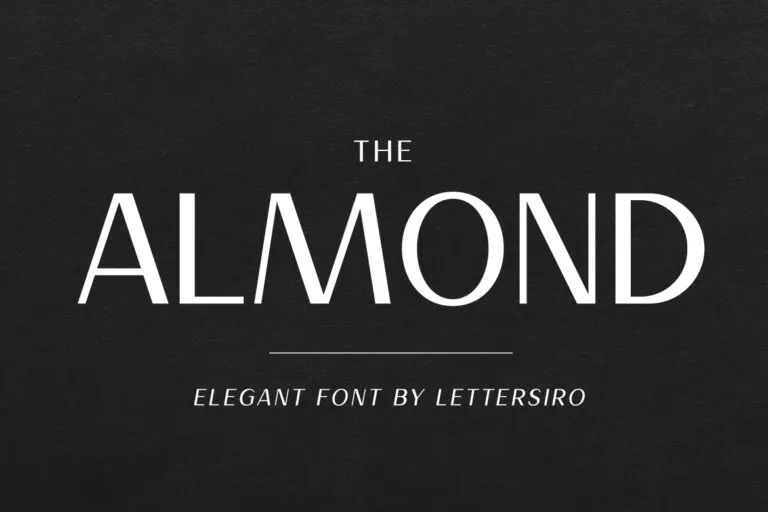
Elegant and versatile, Almond font offers a sophisticated aesthetic with a touch of modernity.
2. Hamilton
Hamilton has a brilliant combination of clarity and modern design. Additionally, this fancy font radiates a sense of professionalism and a gorgeous aesthetic.
3. Maxim
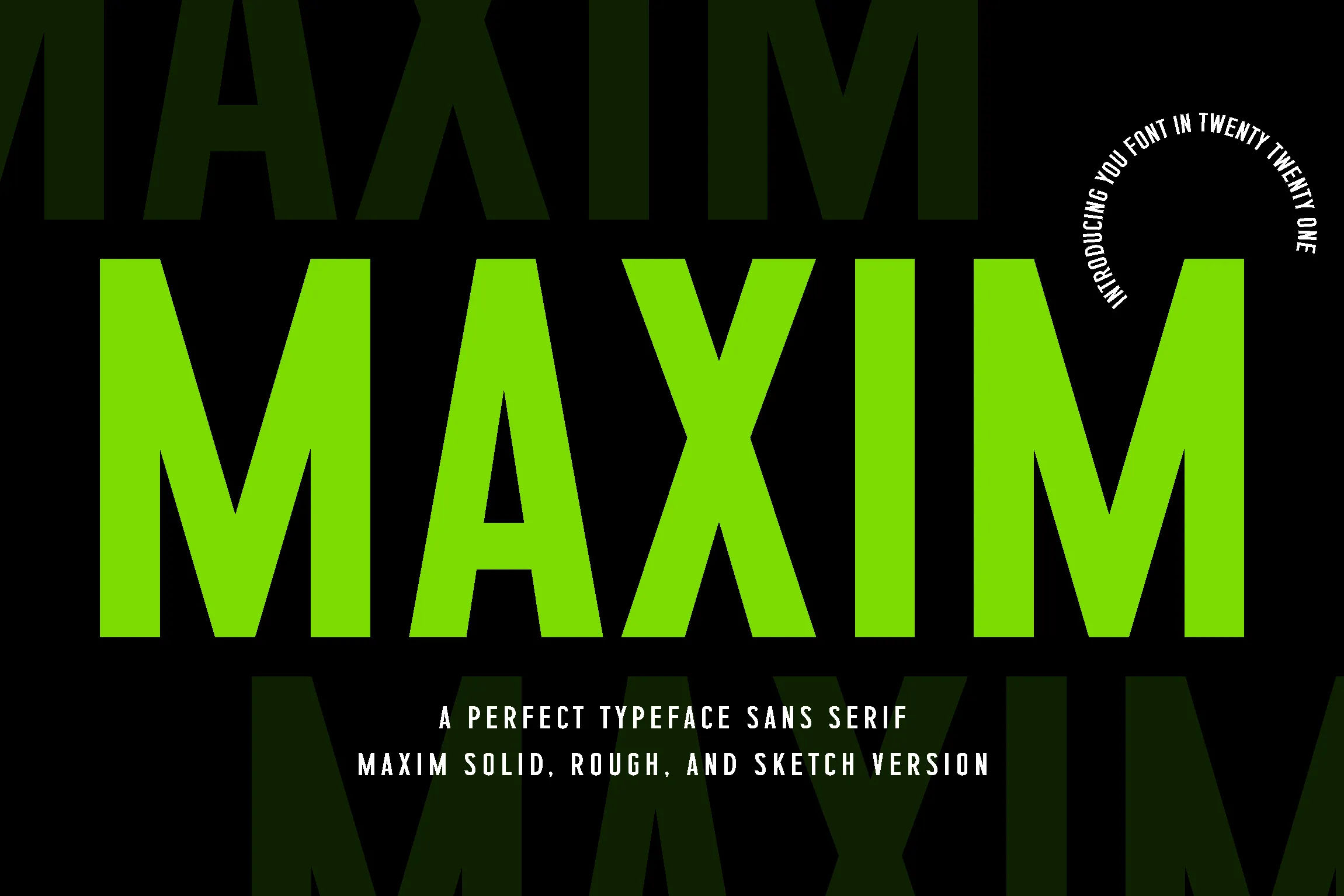
Distinguished by its robust, geometric shapes, Maxim conveys an impression of authority and reliability.
4. Modern Deluxe
Modern Deluxe font is a classy and pleasant sans serif that expresses grandeur and cleverness.
5. South Hamburg
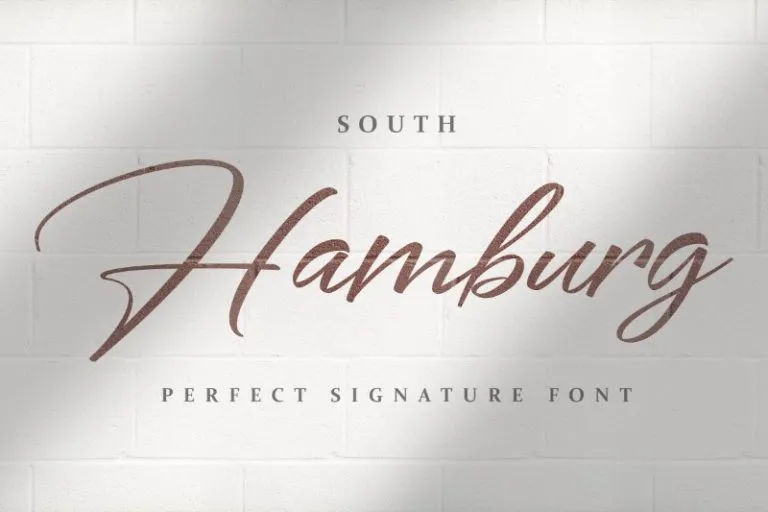
Like other fonts for luxury lawyer brands, South Hamburg emits a sense of professionalism. Its script-like design adds a personal touch to your service.
6. Paladise
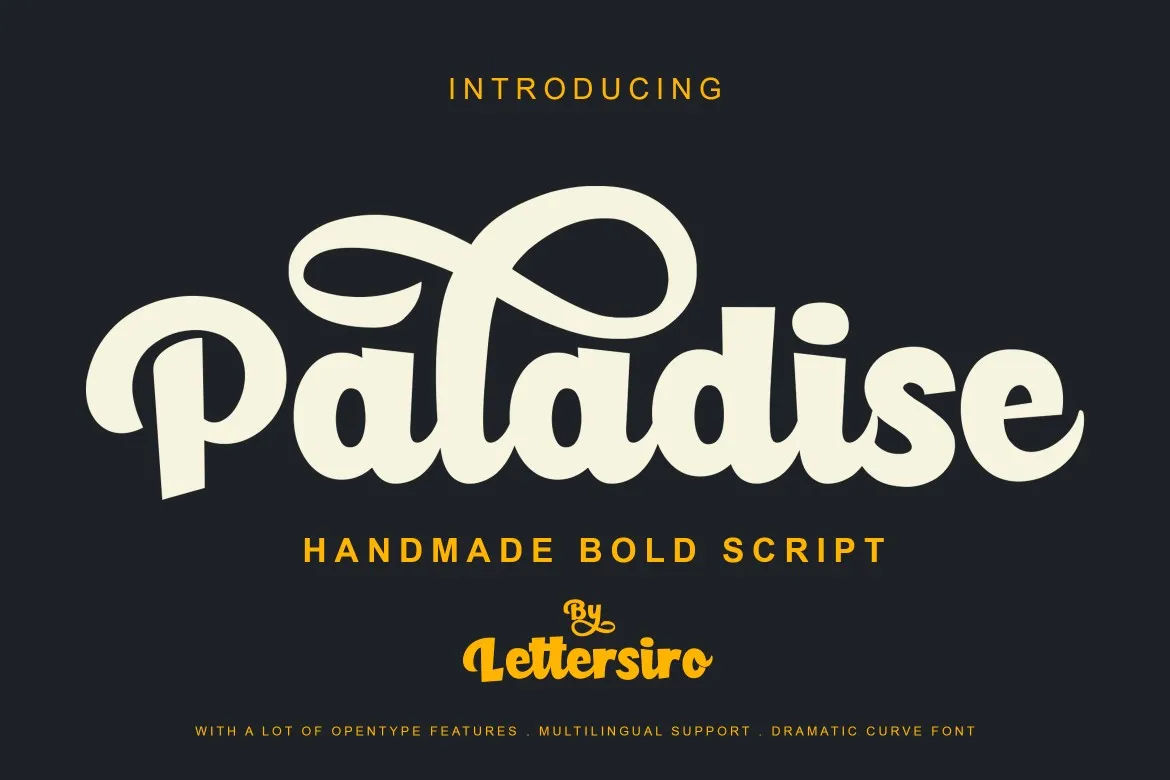
Paladise is an excellently bold script font. It brings fashionable curves to each stroke. It’s fantastic for showcasing the premium quality of your business.
7. Halva
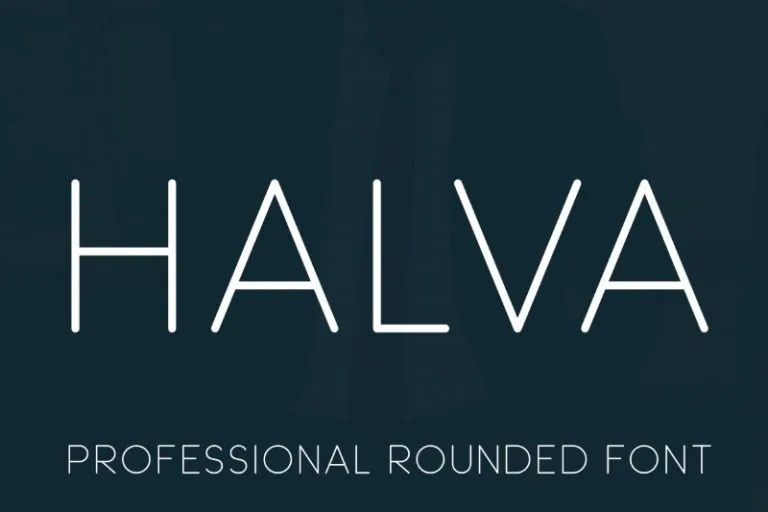
With its refined lines and neat proportions, Halva demonstrates great clarity and competency.
8. Alena
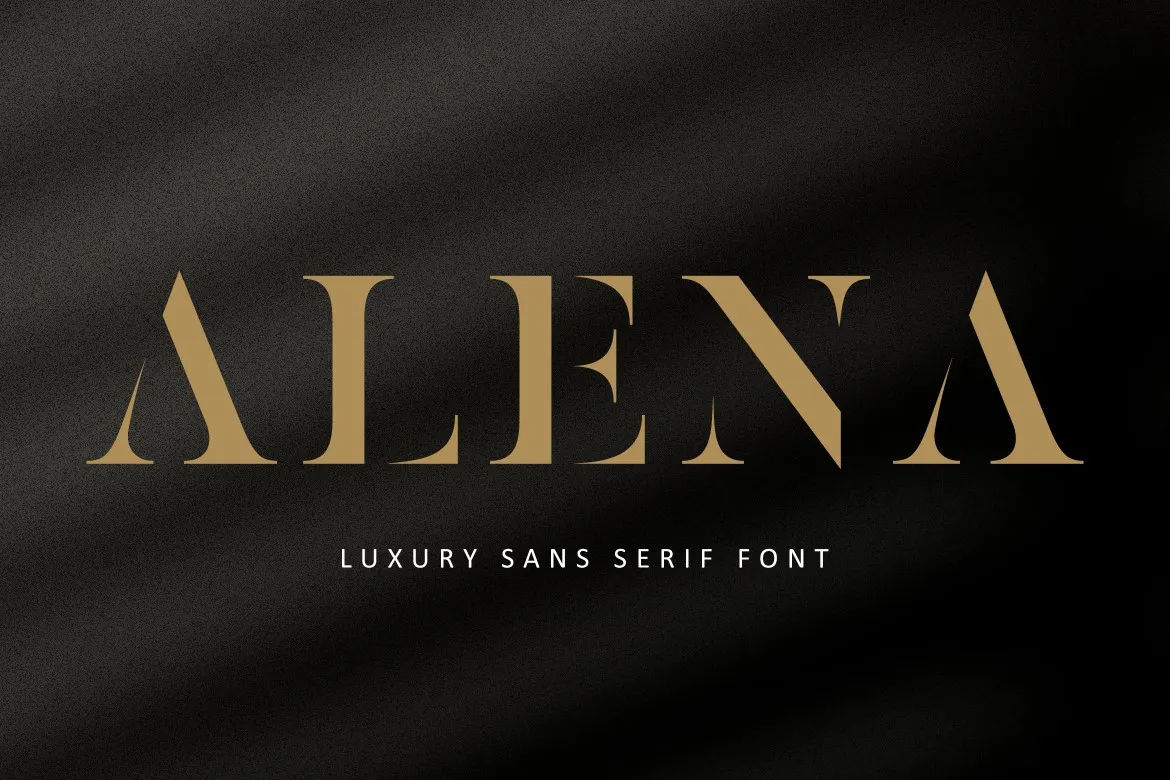
Alena is a fashionable serif typeface. Its balanced letterforms, strong serifs, and great contrast create a beautiful appearance. It feels affluent and influential through the juxtaposition of bold and delicate strokes.
9. Link Heart
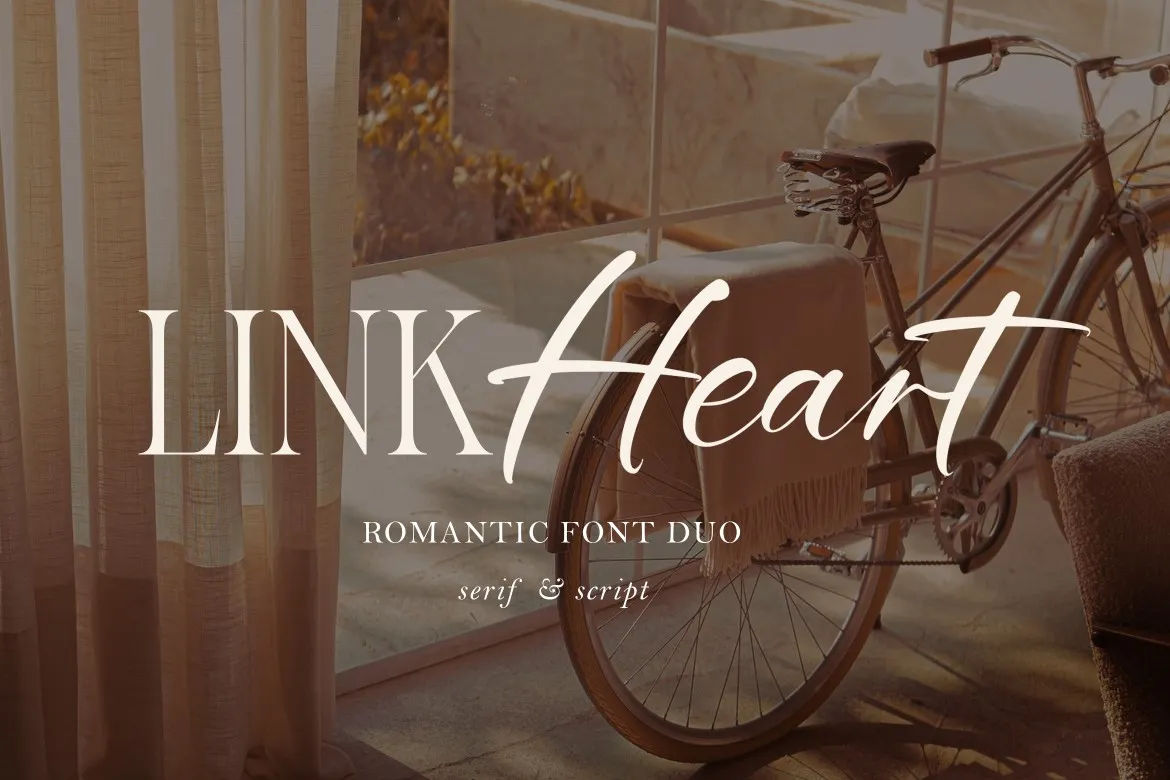
Link Heart offers a pair of fonts: a rigid serif and a casual script. While this combination is quite contrasting, it effectively balances a sense of trustworthiness with an approachable tone.
10. Holland
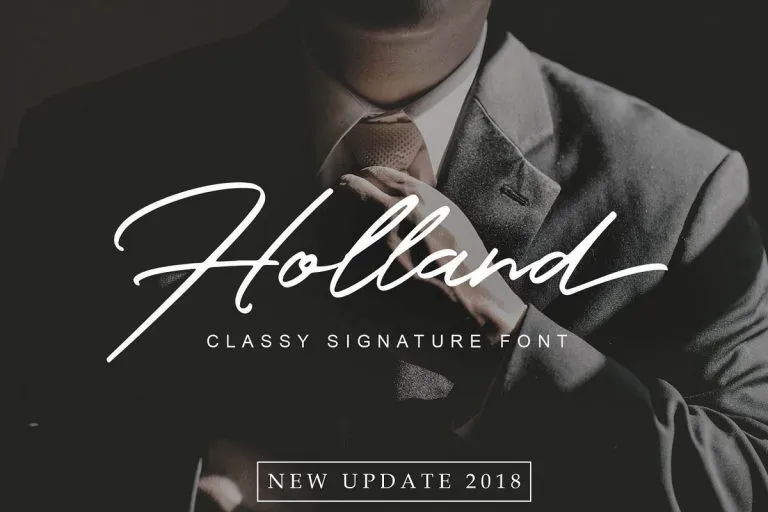
Holland is a high-quality script font that combines modern style with classic appeal. It’s one of the great fonts for luxury lawyer businesses that want to look prestigious and personable.
11. Amsterdam
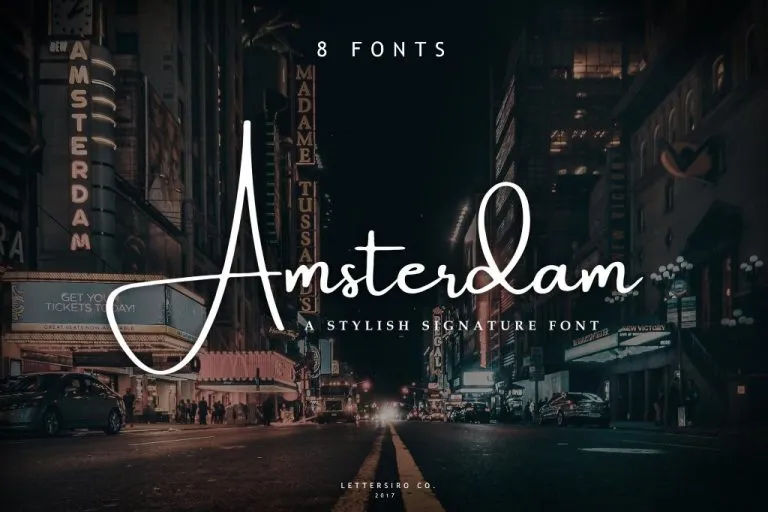
Amsterdam features a handwritten feel and well-balanced, realistic strokes. Its contemporary design grabs attention with bold swashes.
12. Stalysia
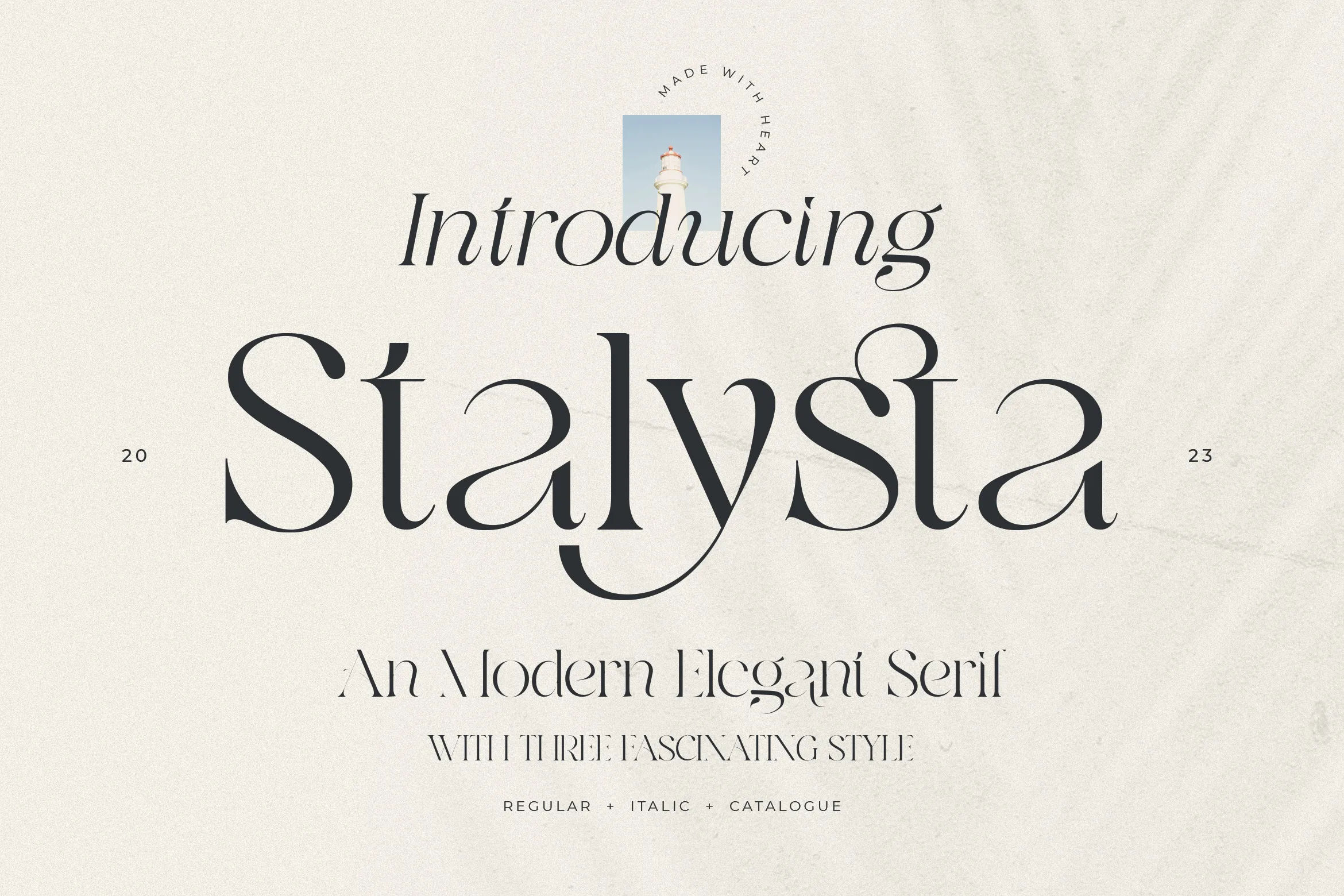
A timeless serif with a modern twist, Stalysia provides an aura of elegance and uniqueness.
13. Amsterdam Serif
Amsterdam Serif is a classic serif font with a sturdy design. It has a rich, historical atmosphere that is ideal to represent stability and trust.
14. Brown Chocolatte
Another unique combination of modern and traditional, Brown Chocolatte lets you showcase your brand in an approachable manner.
15. Night Mango
Like other wonderful fonts for luxury lawyer brands, Night Mango is simple yet stunning. It is an excellent option for emphasizing readability and versatility.
16. Santiago
If you want a touch of vintage charm for your brand, Santiago is the perfect font. Its handwritten style conveys reliability, ideal for a long-established, trusted legal service.
17. Hunters
Hunters is an awesome font for a legal firm because it presents a calligraphy-inspired font that strikes a balance between legibility and elegance.
18. Gloria
If you want to project prestige, tradition, and elegance, Gloria is a great choice. The font features fancy curves and unique letter alternates, giving it a luxurious and artistic feel.
Adopting the appropriate font is vital for luxury law firms seeking to establish a high-end brand. By focusing on readability, versatility, and how well fonts align with their values, firms can use fonts for luxury lawyer branding to convey competence and elegance.